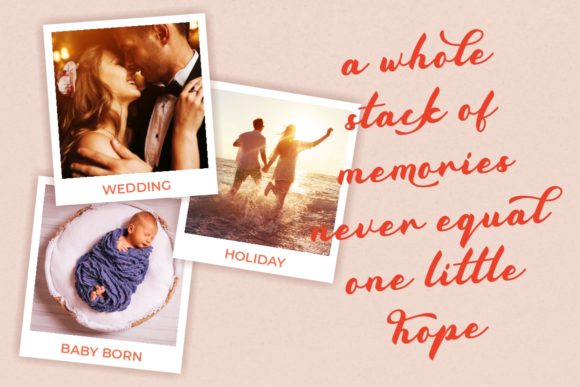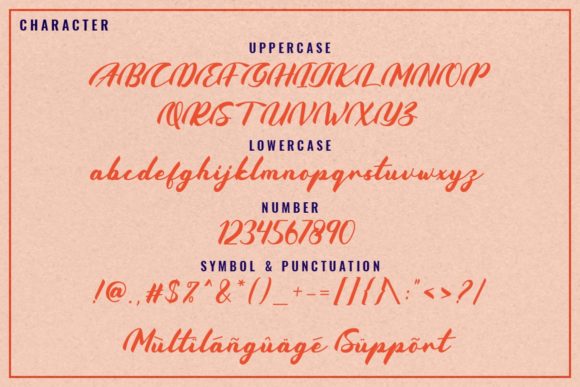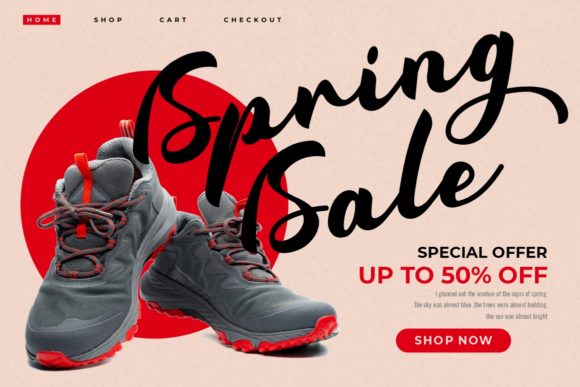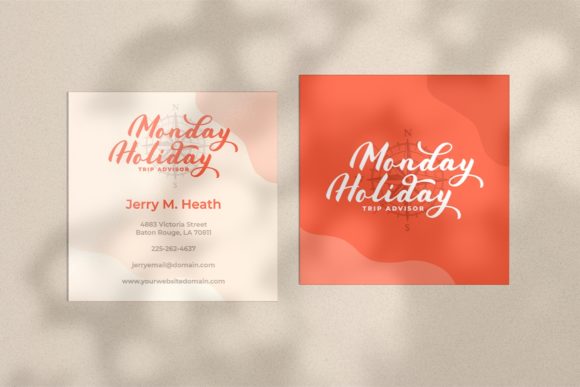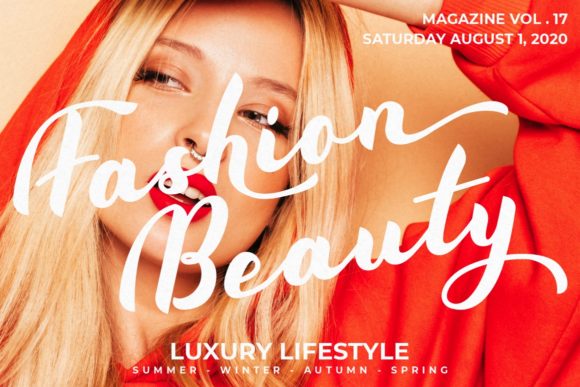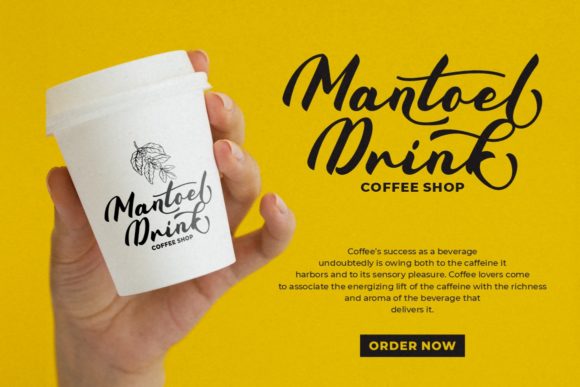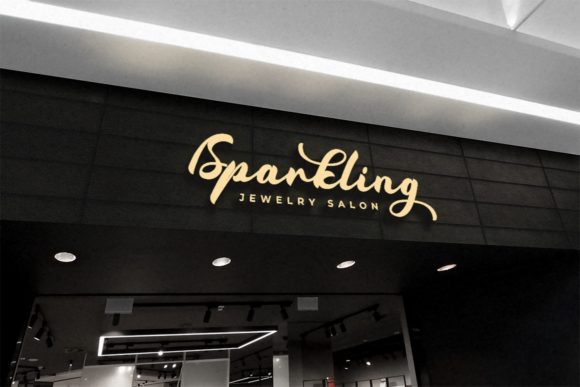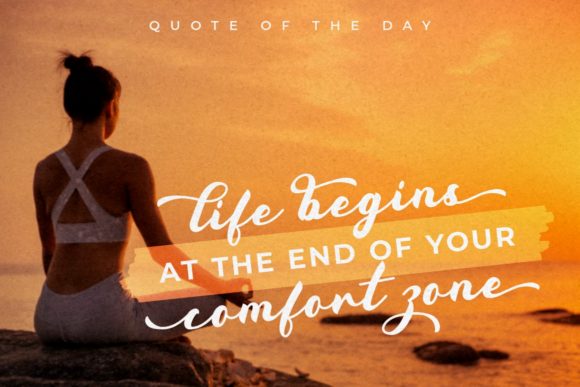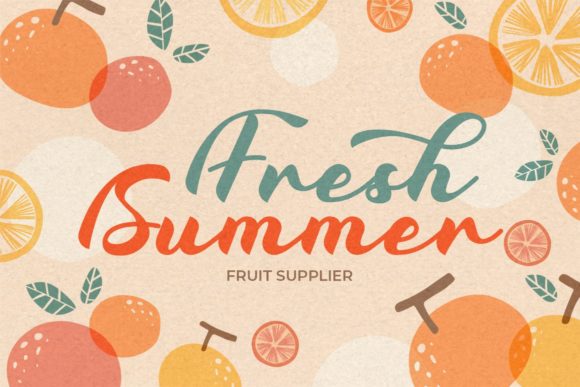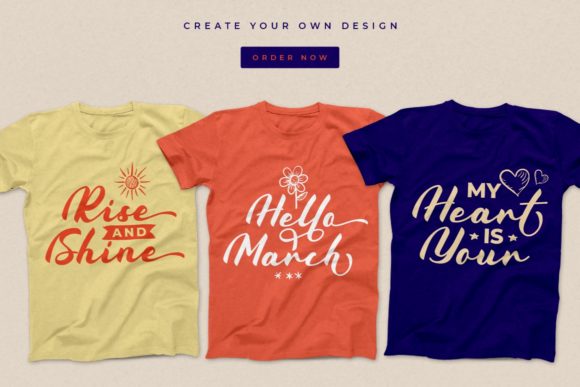
Coldcoast Font
About Coldcoast Font
Coldcoast is a charming handwritten script. This font is PUA encoded which means you can access all of the glyphs and swashes with ease! It features a varying baseline, smooth lines, gorgeous glyphs and stunning alternates. Get creative with its incredibly distinct and timeless style and use it to create spectacular designs!